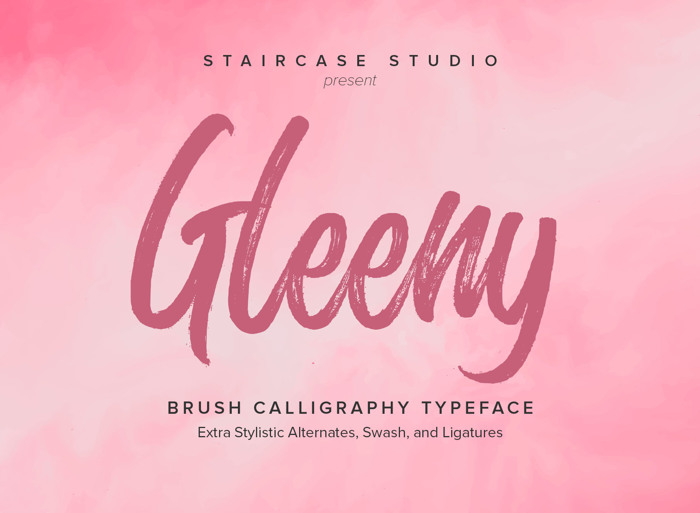
Glenny Font
Glenny with font style brush calligraphy typeface. A collection of letters and numbers suitable your projects also great for Logotype, Branding Design, Logo Design, Digital Lettering Arts, T-Shirt/Apparel, Poster, Magazine, Signs, Advertising Design, and any design needs.